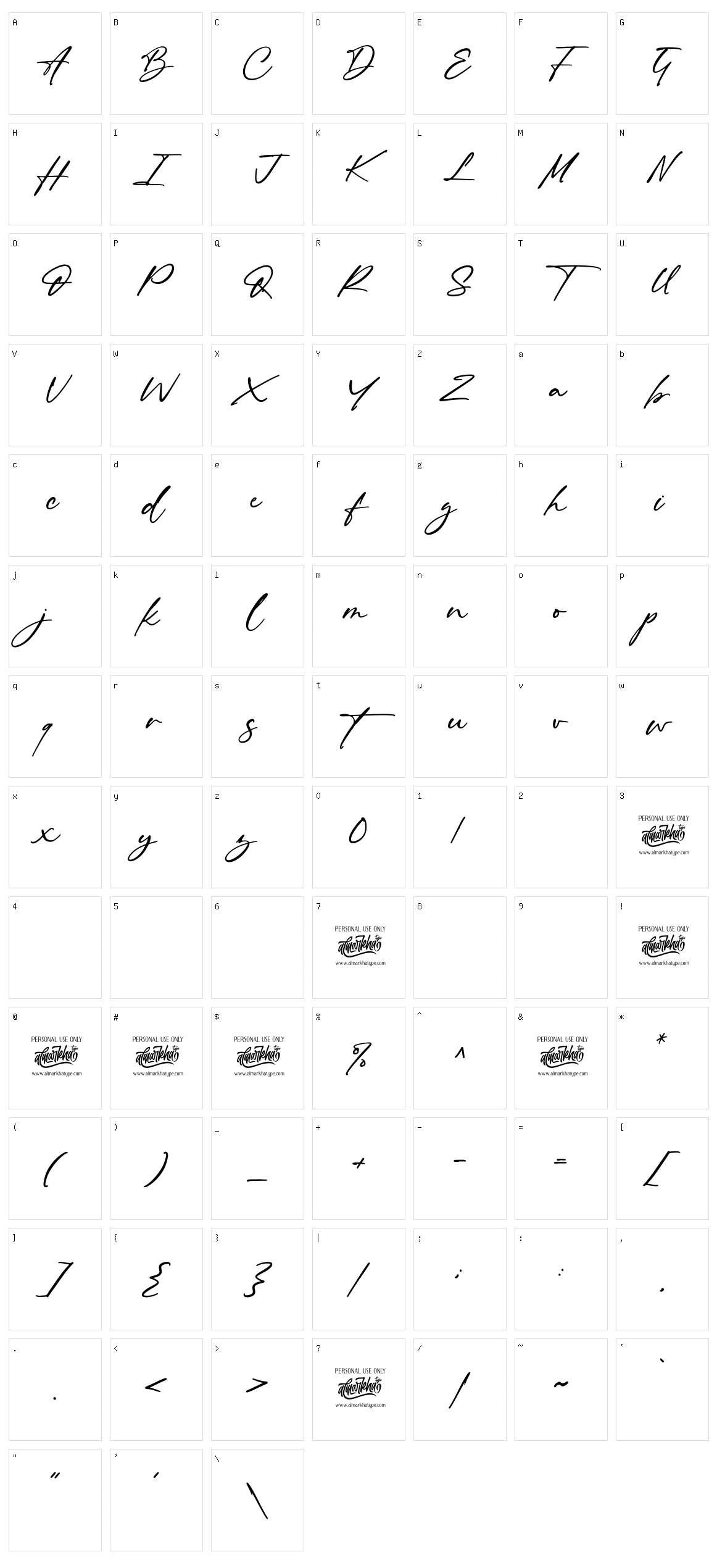
The free font Author Think is carefully designed by Almarkhatype, showcasing a thoughtful balance of creativity and usability and falls under the Script font style. When you download the ZIP file, it contains only 509.91 KB of font files, making it lightweight and quick to download. Please review the license details below to understand permitted usage and distribution rights. If license information is not available, we recommend using this font for personal projects only or contacting the author directly for commercial usage permissions.